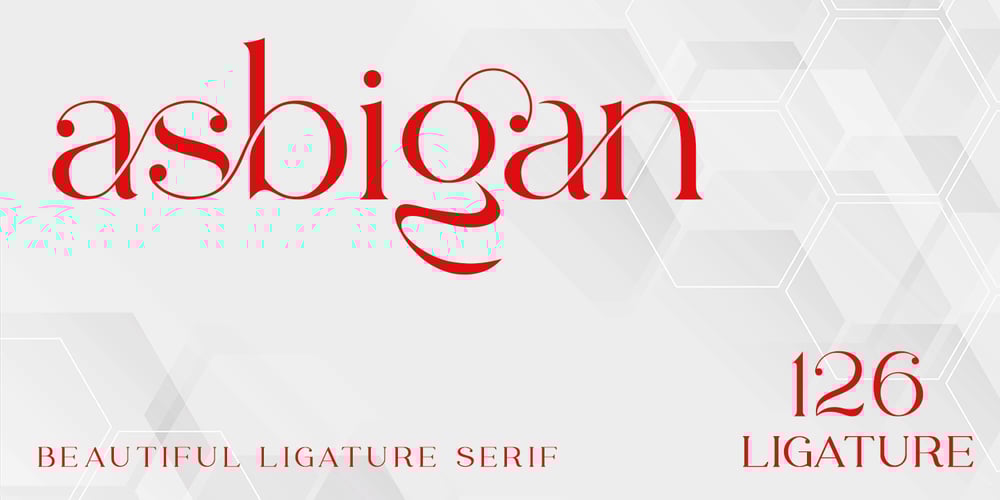
Asbigan
Asbigan font
Asbigan Font Family was designed by Saiful Anwar and published by Sealoung. Asbigan contains 1 styles and family package options. Asbigan is an beautiful and very elegant font for brand and logo design.Based on our experience as a graphic designer who works for a lot of companies, we often are requested to design a logo in a unique style but with an elegant shape. So, we try to brainstorming and create this font to make the idea is going out. This font have 126 BEAUTIFUL LIGATURES is perfect for BRANDING and LOGO DESIGN. You will get classy, elegant, and certainly unique logos with this font.Asbigan is also included full set of:ligaturesuppercase and lowercase lettersmultilingual symbolsnumeralspunctuationHOW TO ACCESS LIGATURES CHARACTERSOpen glyphs panel:In Adobe Photoshop go to Window – glyphsIn Adobe Illustrator go to Type – glyphsThanks for checking out our font! I really hope you enjoy using it!If you have any questions I’d be more than happy to answer them, just send me a message!